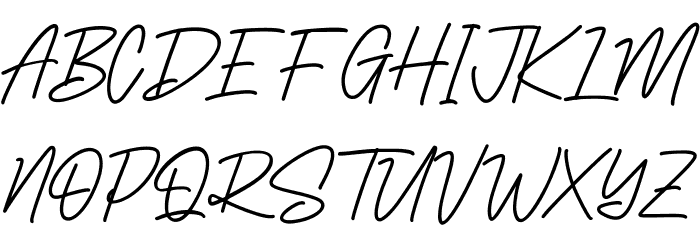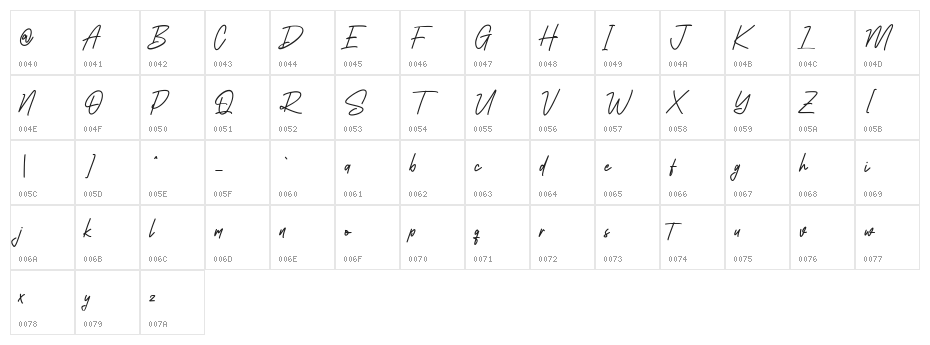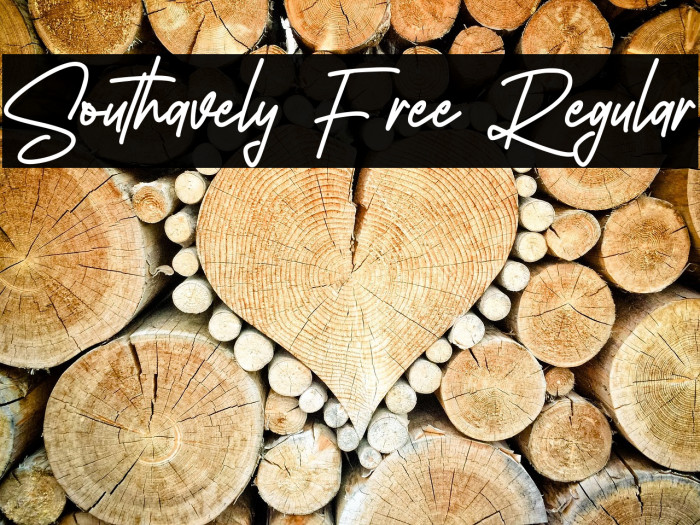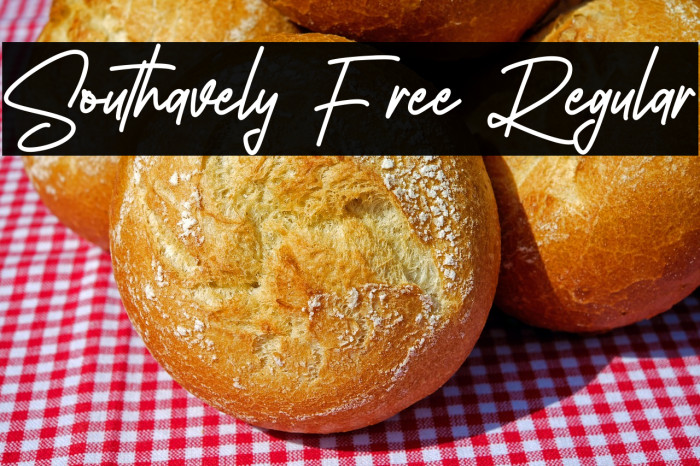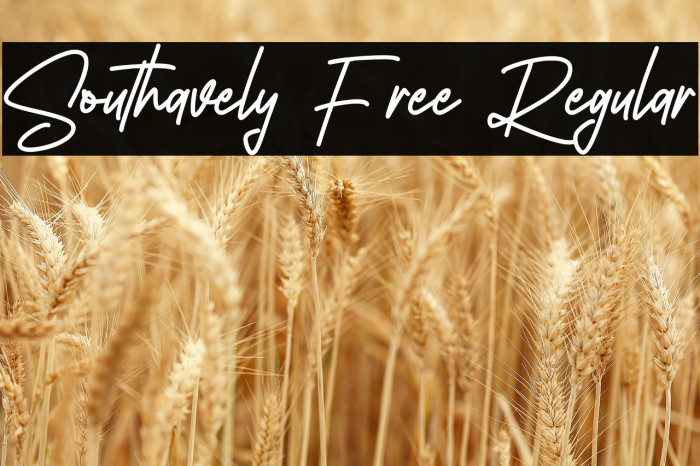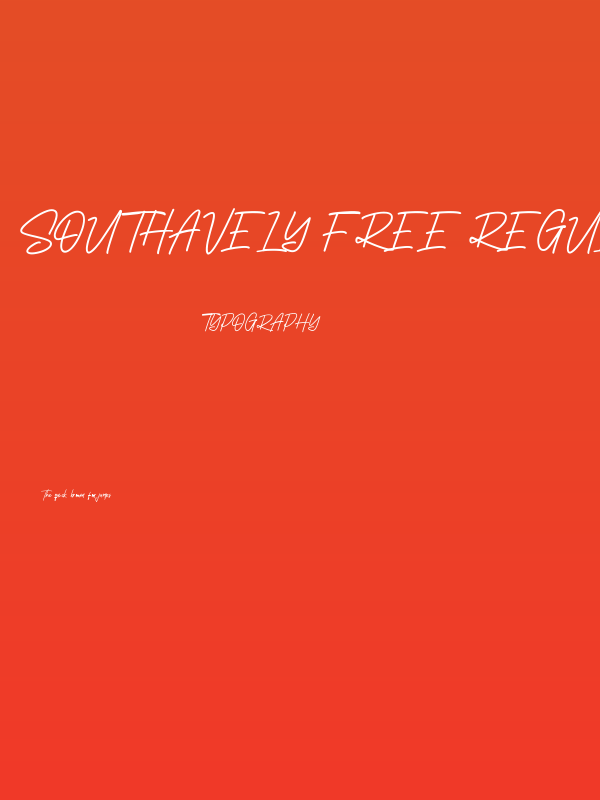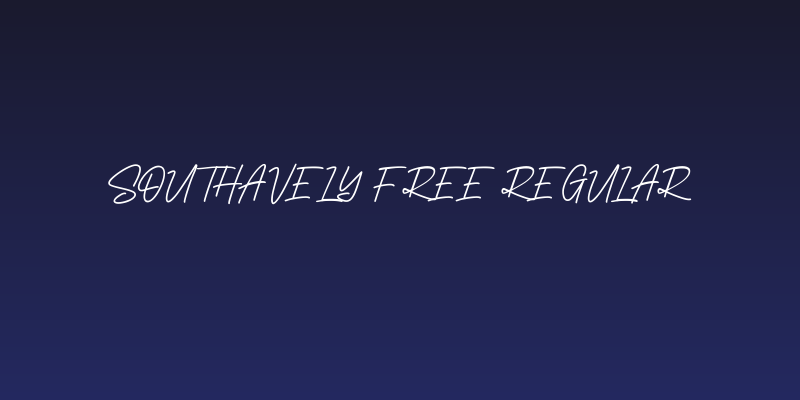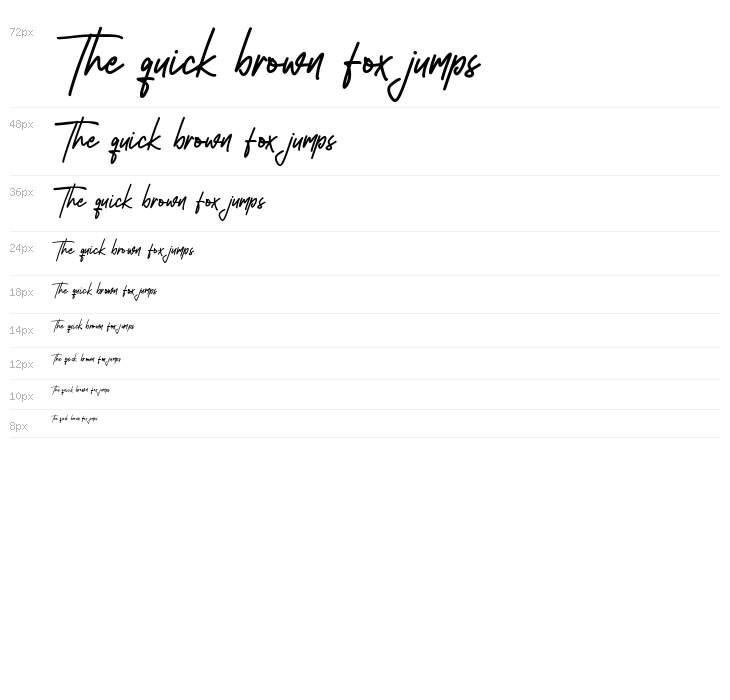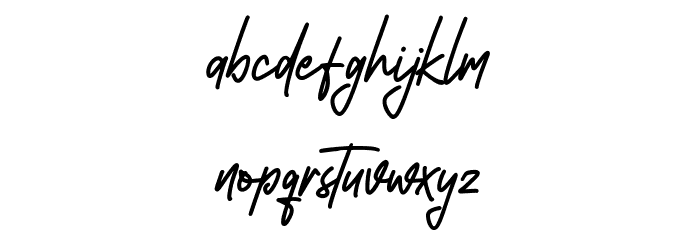
Southavely Free Regular Font
Southavely Free Regular Description
This font features a flowing, cursive style that mimics elegant handwriting. The characters are connected, creating a seamless and fluid appearance. The uppercase letters are tall and slightly slanted, while the lowercase letters maintain a consistent baseline with gentle curves and loops. The overall look is sophisticated yet approachable, making it suitable for a variety of design projects. The font's thin strokes and consistent line weight contribute to its graceful and airy feel, enhancing its readability while maintaining a stylish aesthetic.